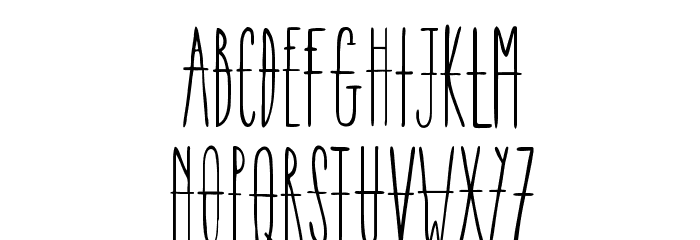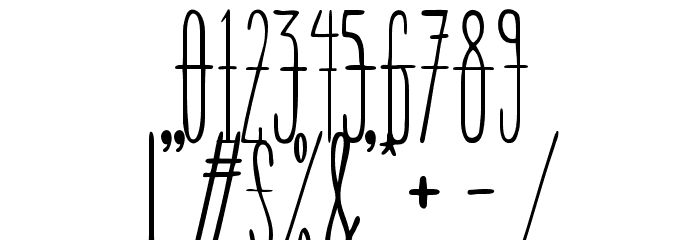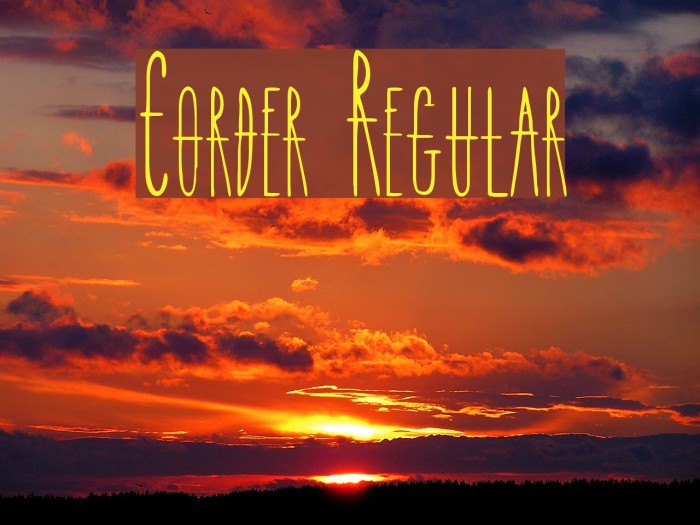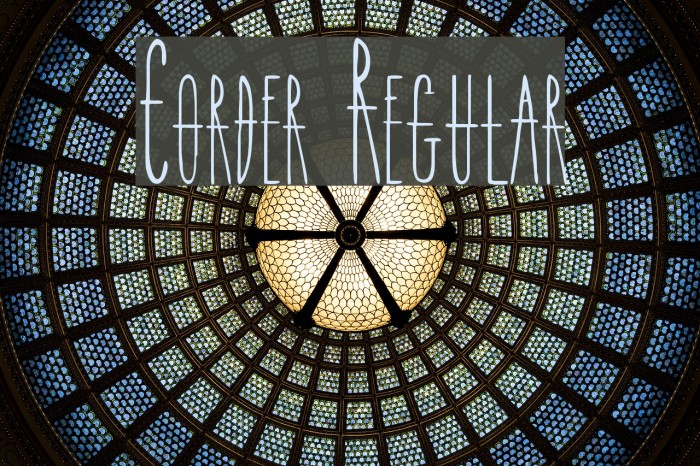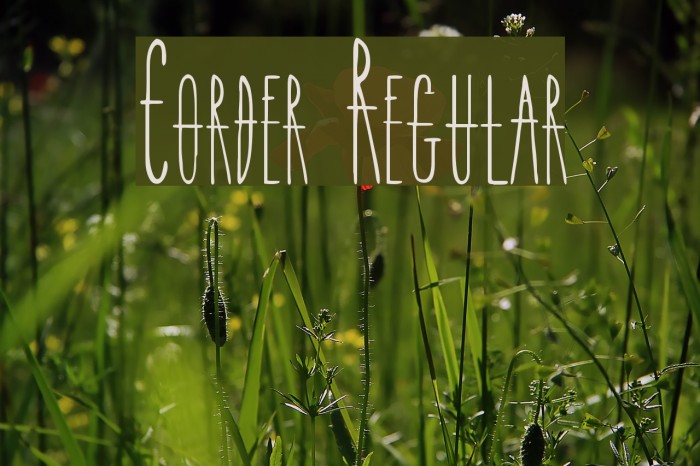
Corder Regular Font
This font features an elongated and narrow design, characterized by its tall and slender letterforms. The strokes are consistent in width, giving it a uniform appearance. The characters have a modern and minimalistic feel, with clean lines and a geometric structure. The uppercase and lowercase letters maintain a cohesive style, while the numerals and special characters complement the overall aesthetic. The font's unique style makes it suitable for projects that require a contemporary and stylish look.
A tall, slender, and modern font with a geometric structure.
- Proposed Projects: Ideal for fashion branding, modern posters, editorial design, and minimalist logos.
- Character Spacing: Tight